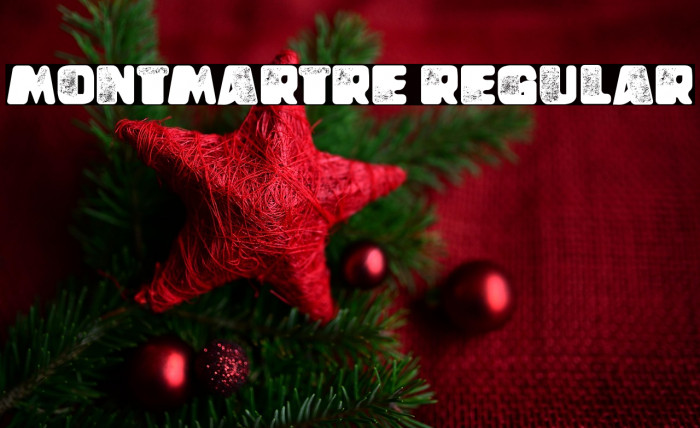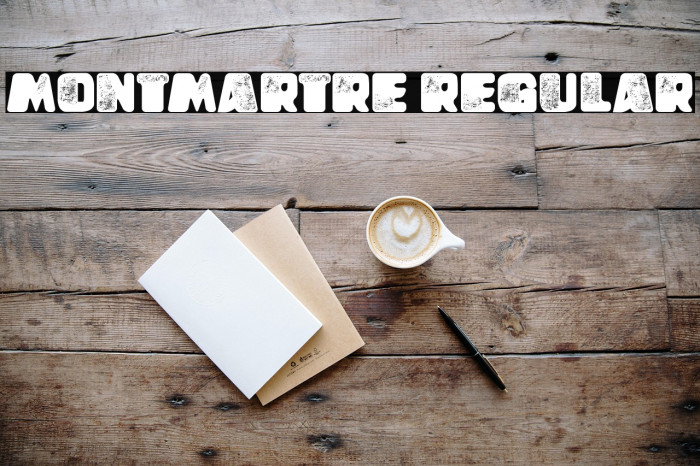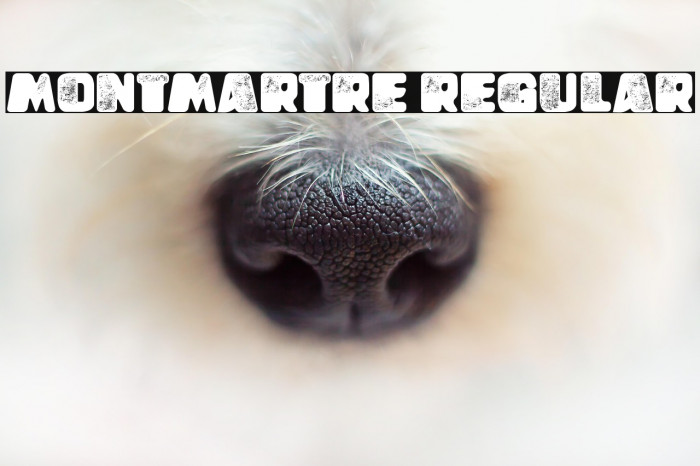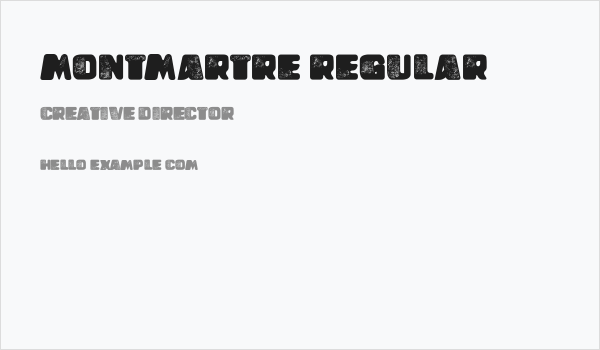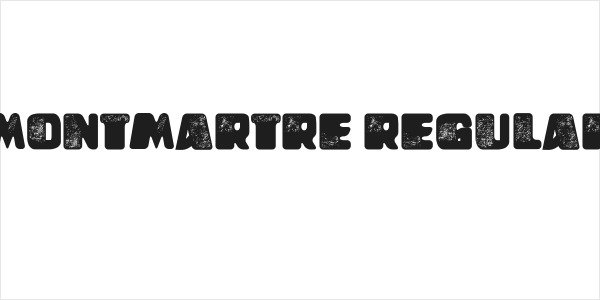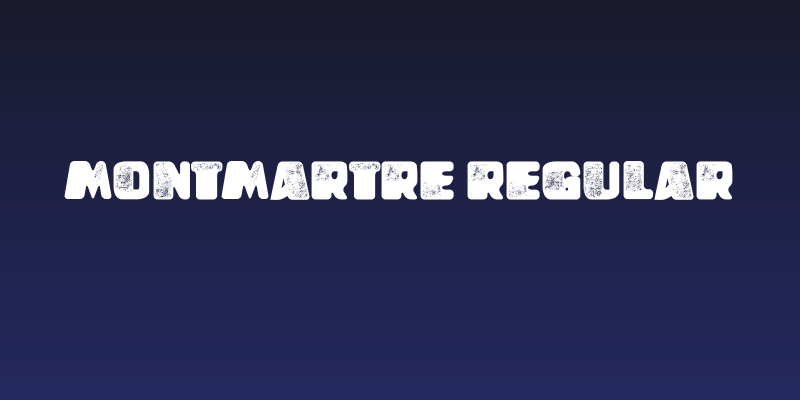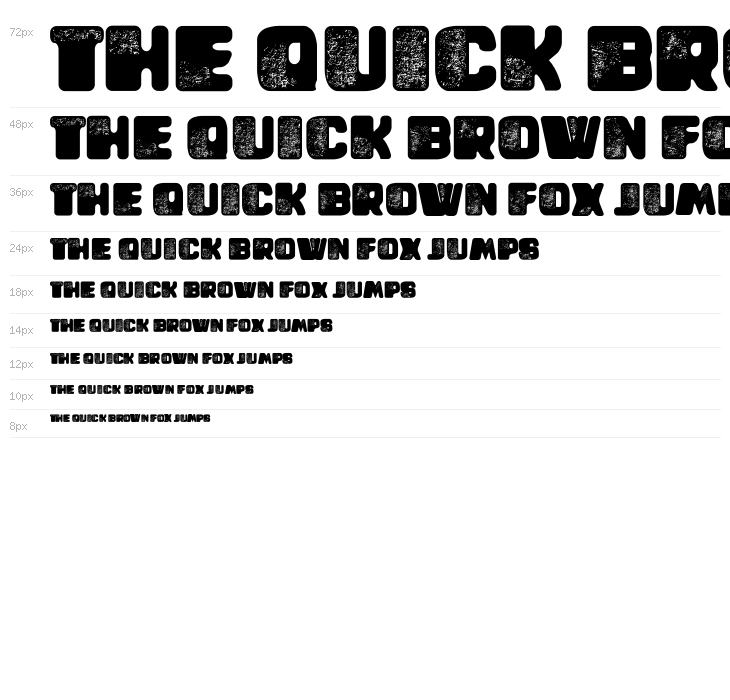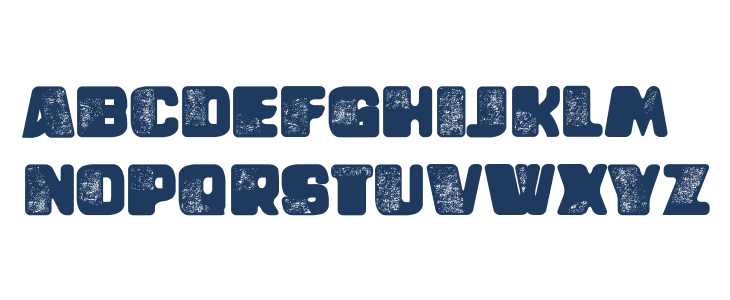
Montmartre Regular Font
Montmartre Regular Description
This font features a bold, distressed style with a vintage appeal. The characters are blocky and substantial, giving a strong presence on the page. The texture within each letter adds a worn, rustic feel, reminiscent of old signage or print. The uppercase letters are uniform in height, with rounded edges that soften the overall look. This font is ideal for projects that require a touch of nostalgia or a handcrafted aesthetic. Its boldness ensures readability while the unique texture provides visual interest.
| Proposed Projects | Perfect for vintage posters, retro branding, signage, and any design needing a rustic touch. |